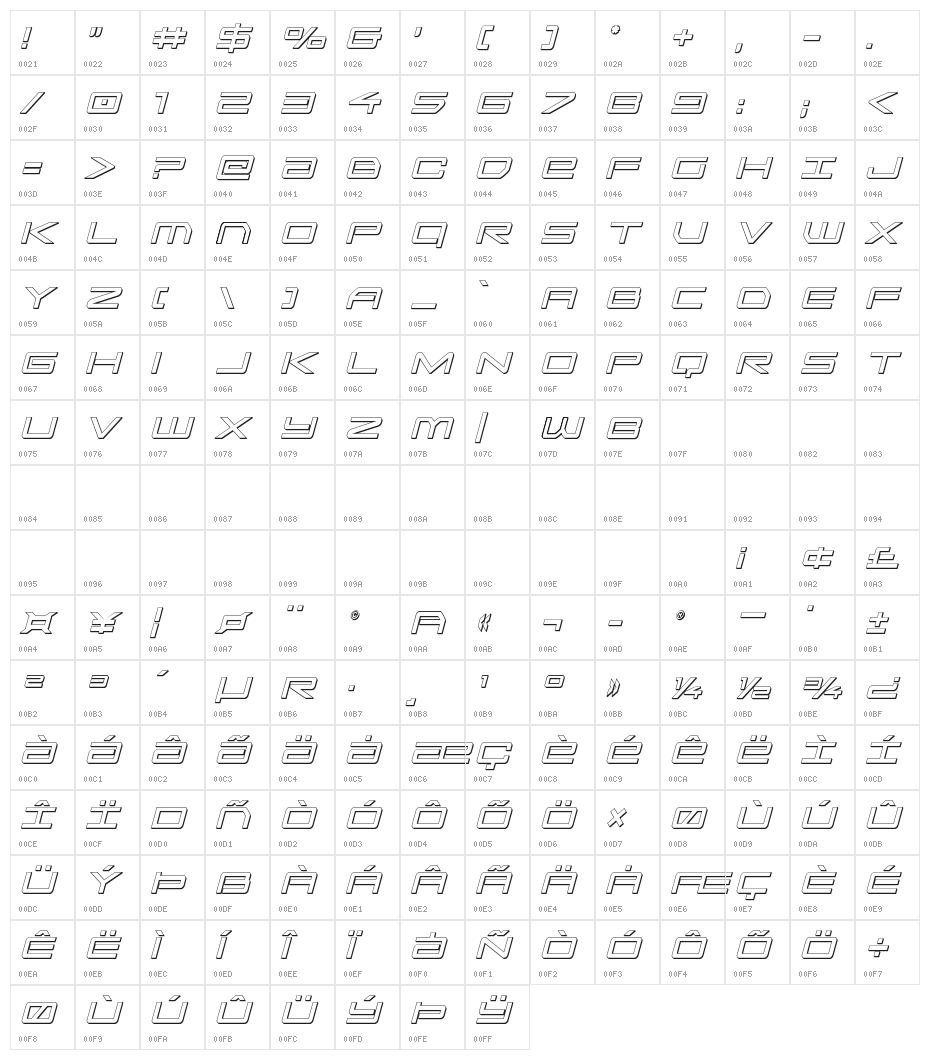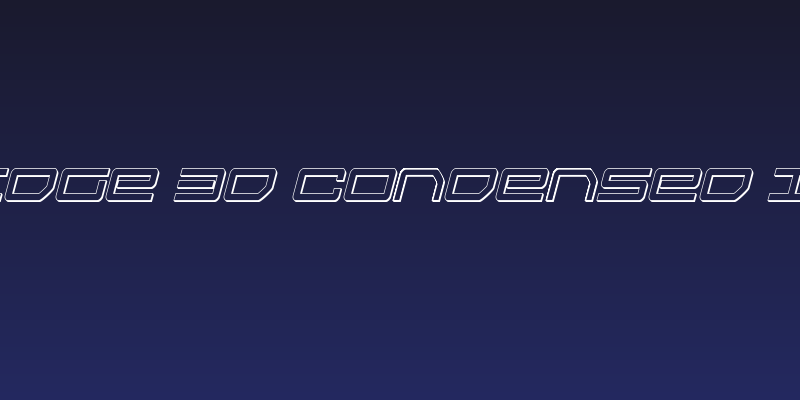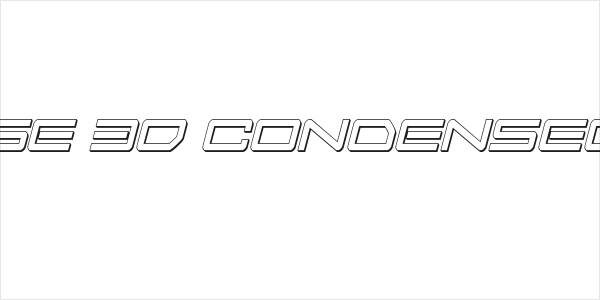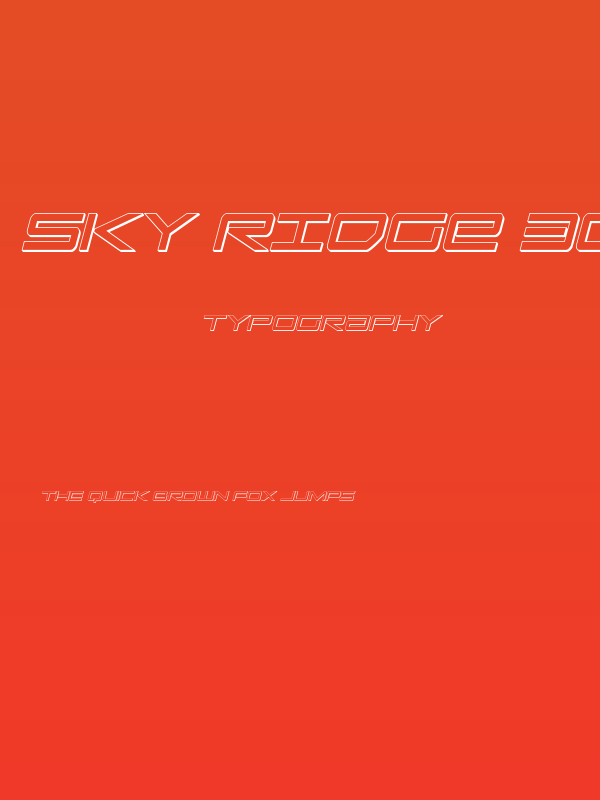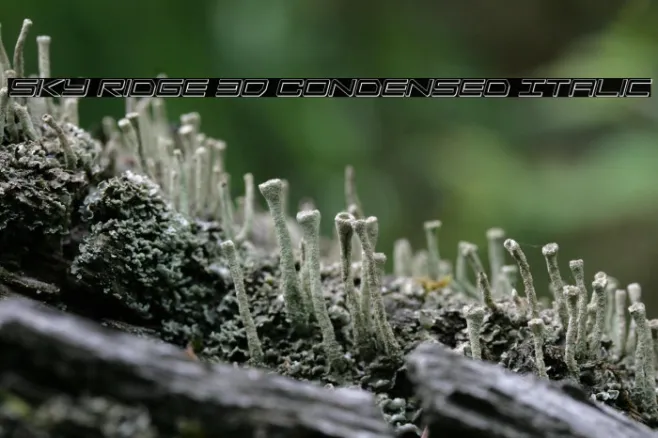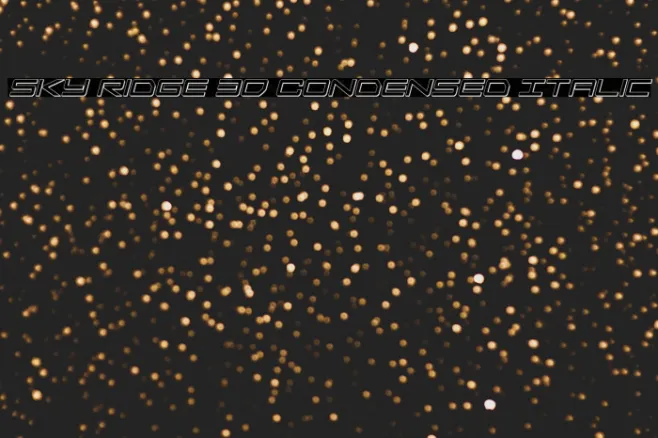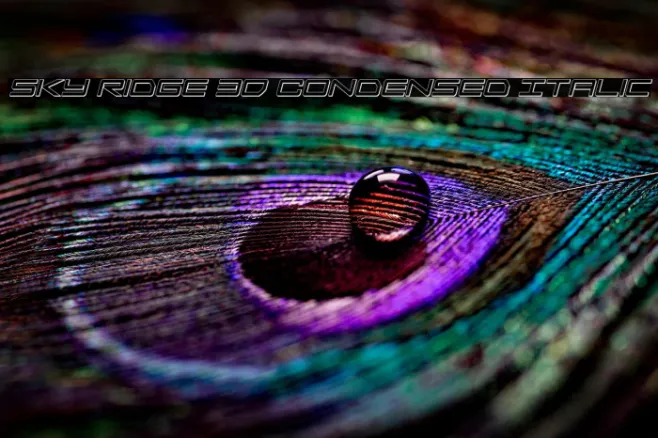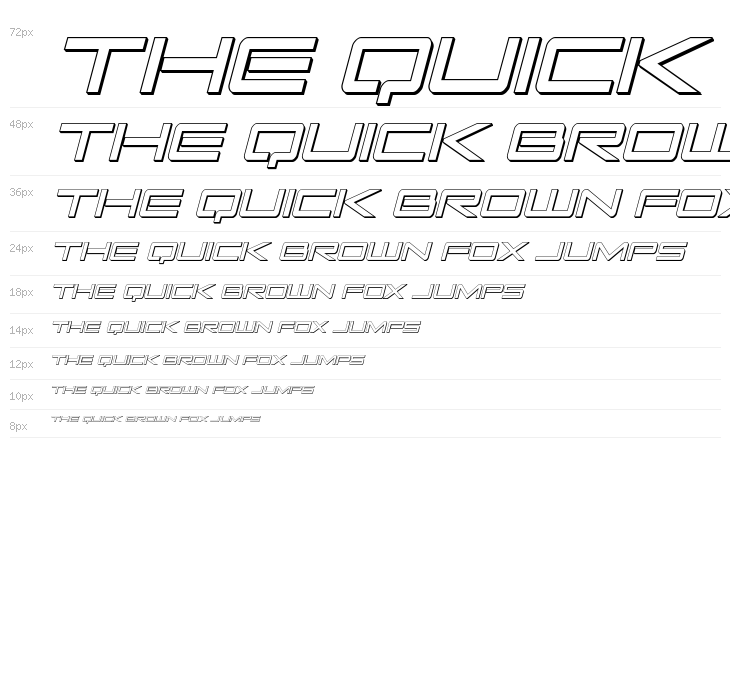
Sky Ridge 3D Condensed Italic Font
Sky Ridge 3D Condensed Italic Description
This font features a futuristic and geometric design with a 3D effect, giving it a dynamic and modern appearance. The characters are condensed and italicized, adding a sense of speed and movement. The outlines are bold and consistent, creating a strong visual impact. The uppercase and lowercase letters maintain a uniform style, with sharp angles and clean lines. The numbers and special characters follow the same design principles, ensuring a cohesive look across all elements. This font is ideal for projects that require a contemporary and edgy aesthetic.
| Proposed Projects | Ideal for technology branding, sci-fi posters, video game titles, and modern advertising. |